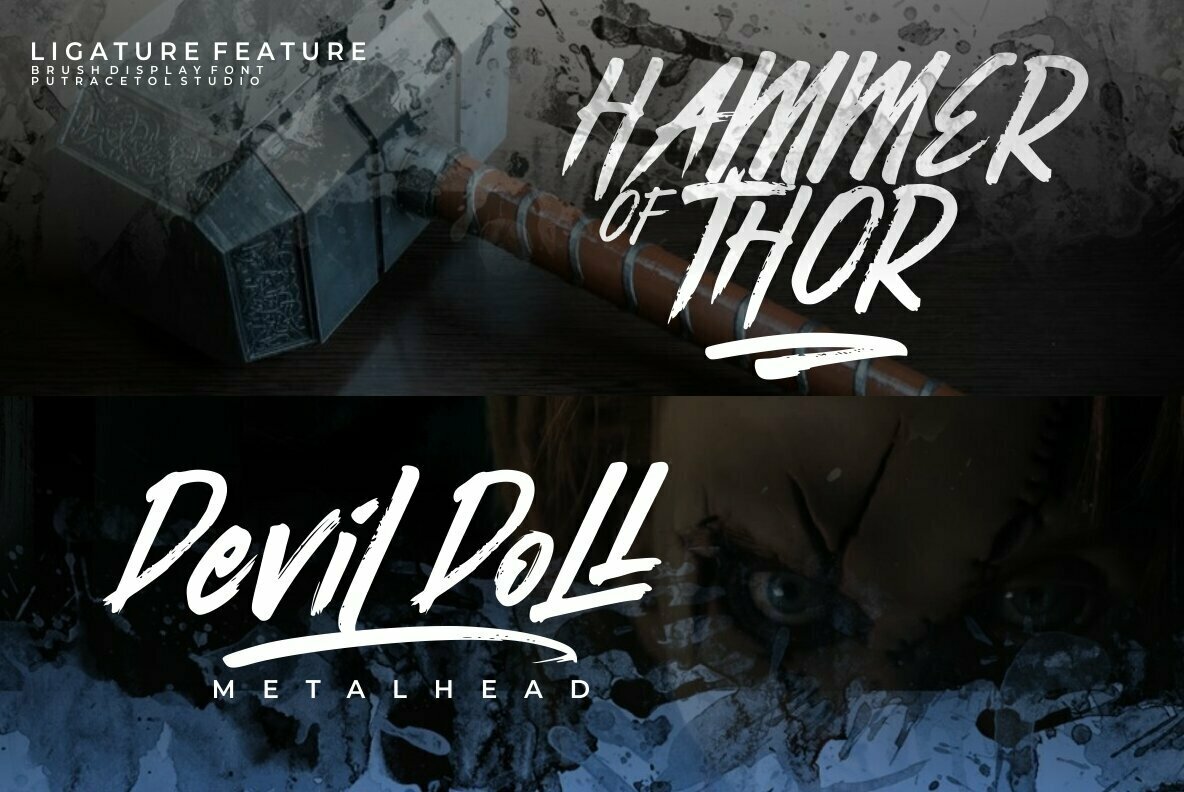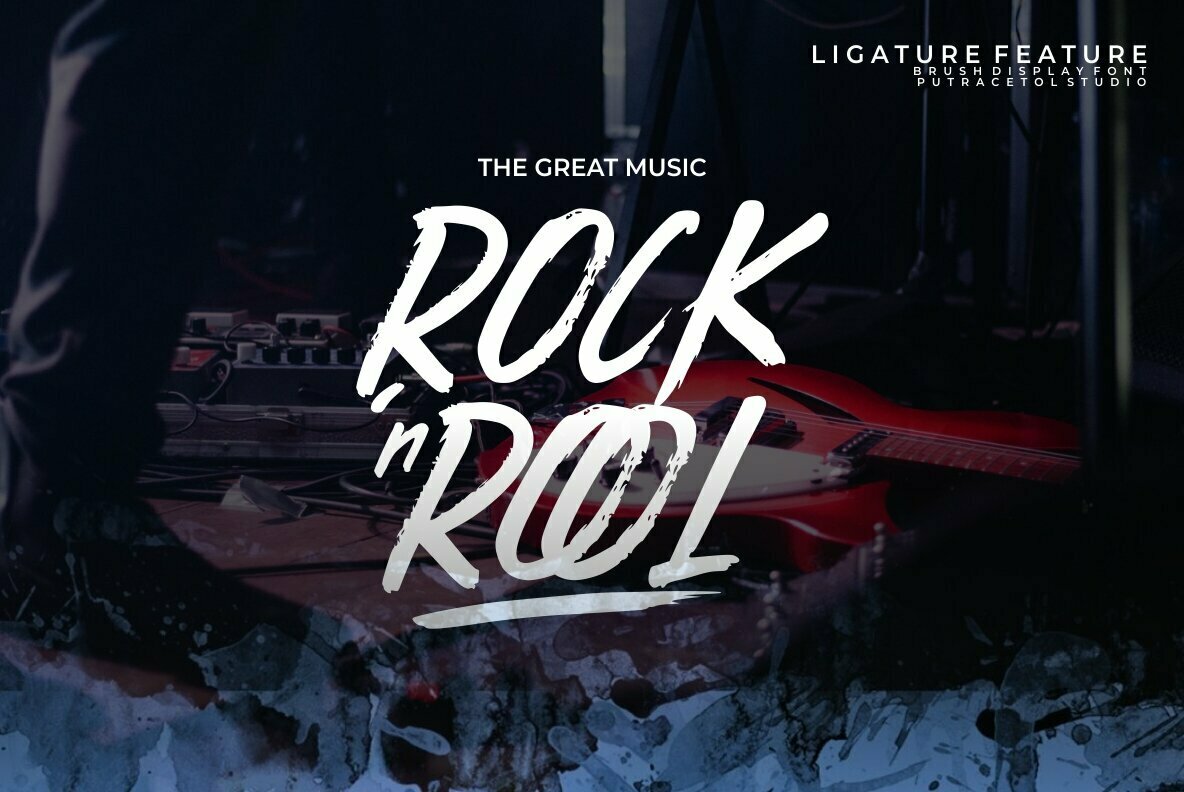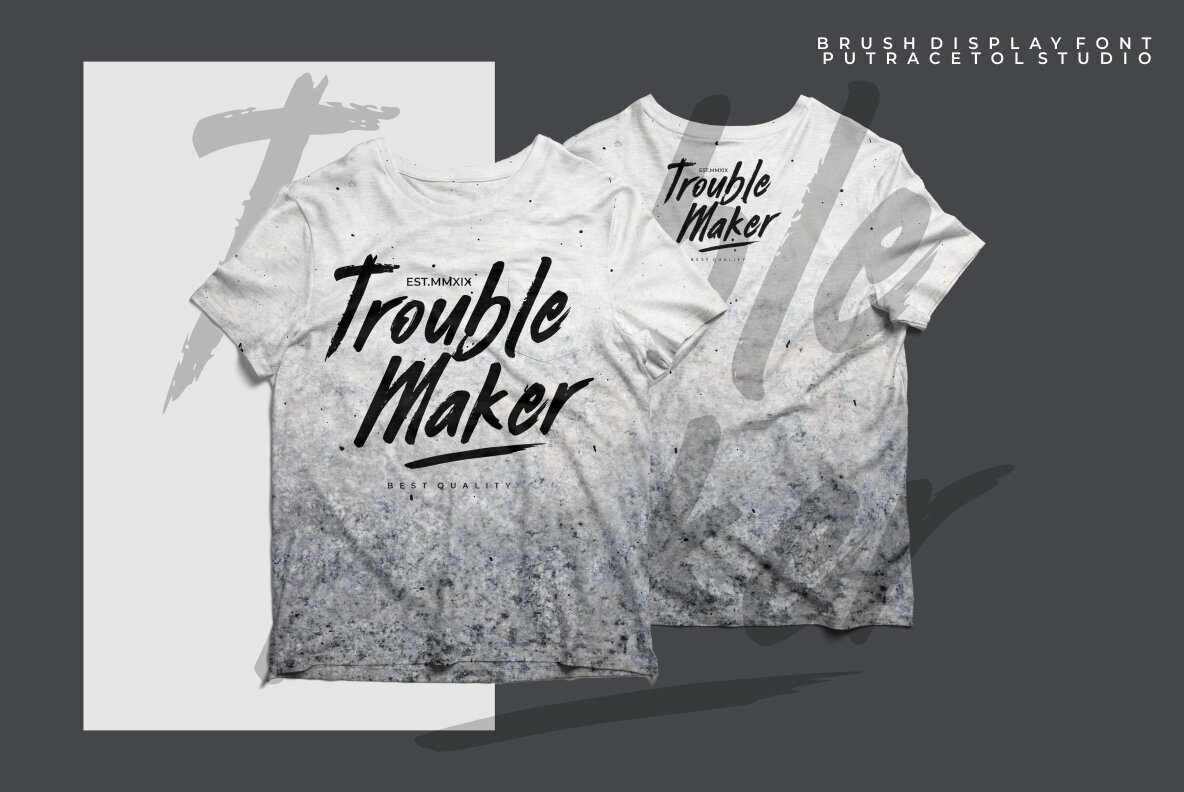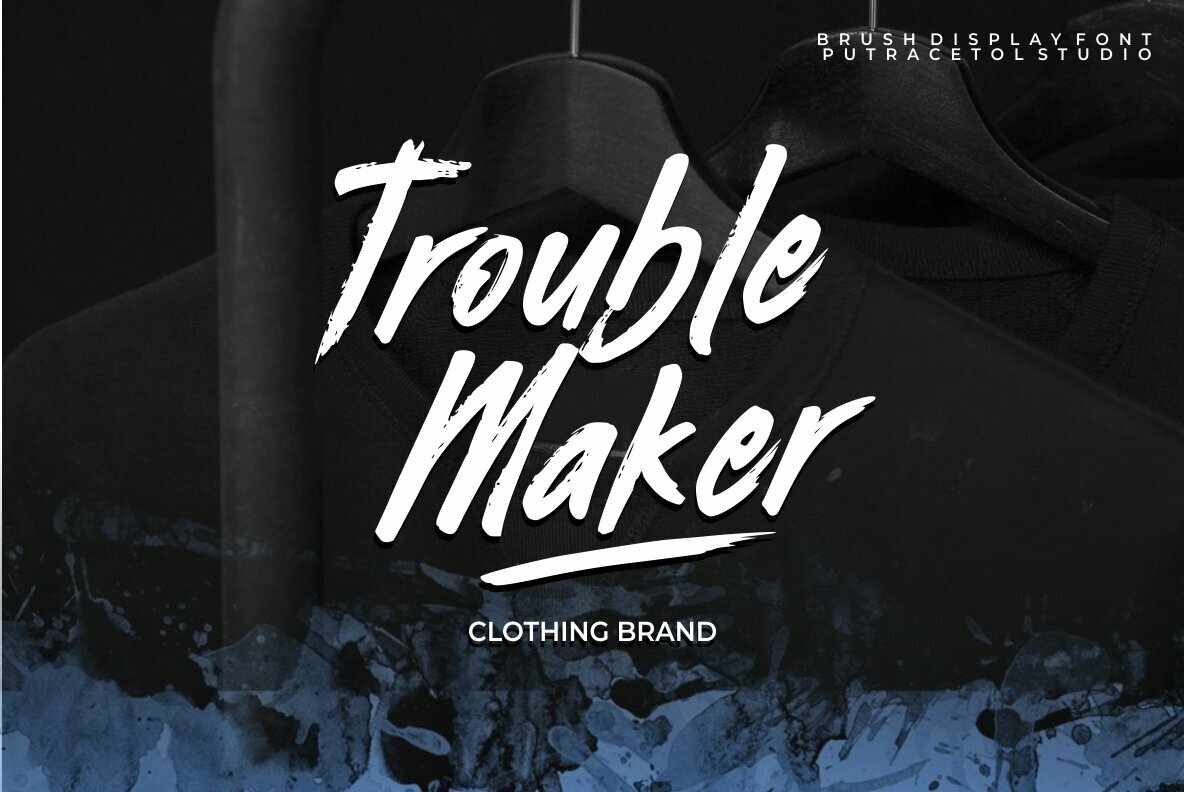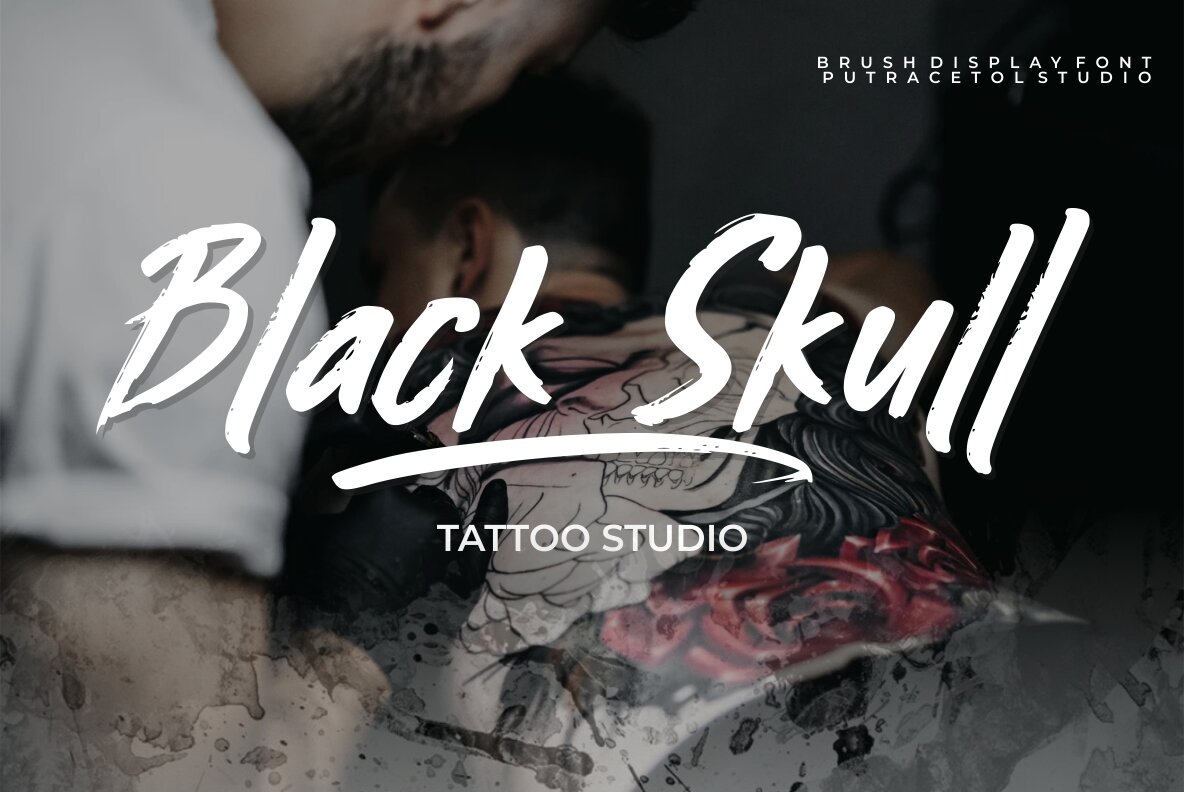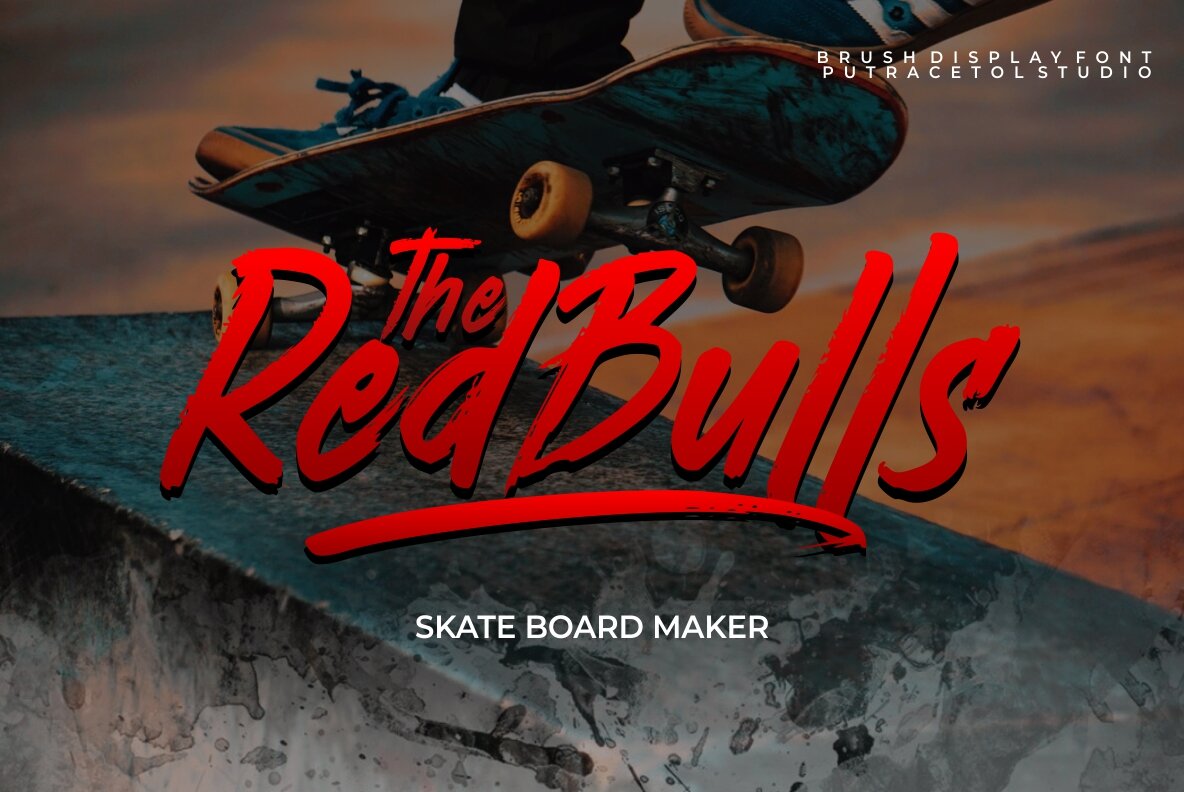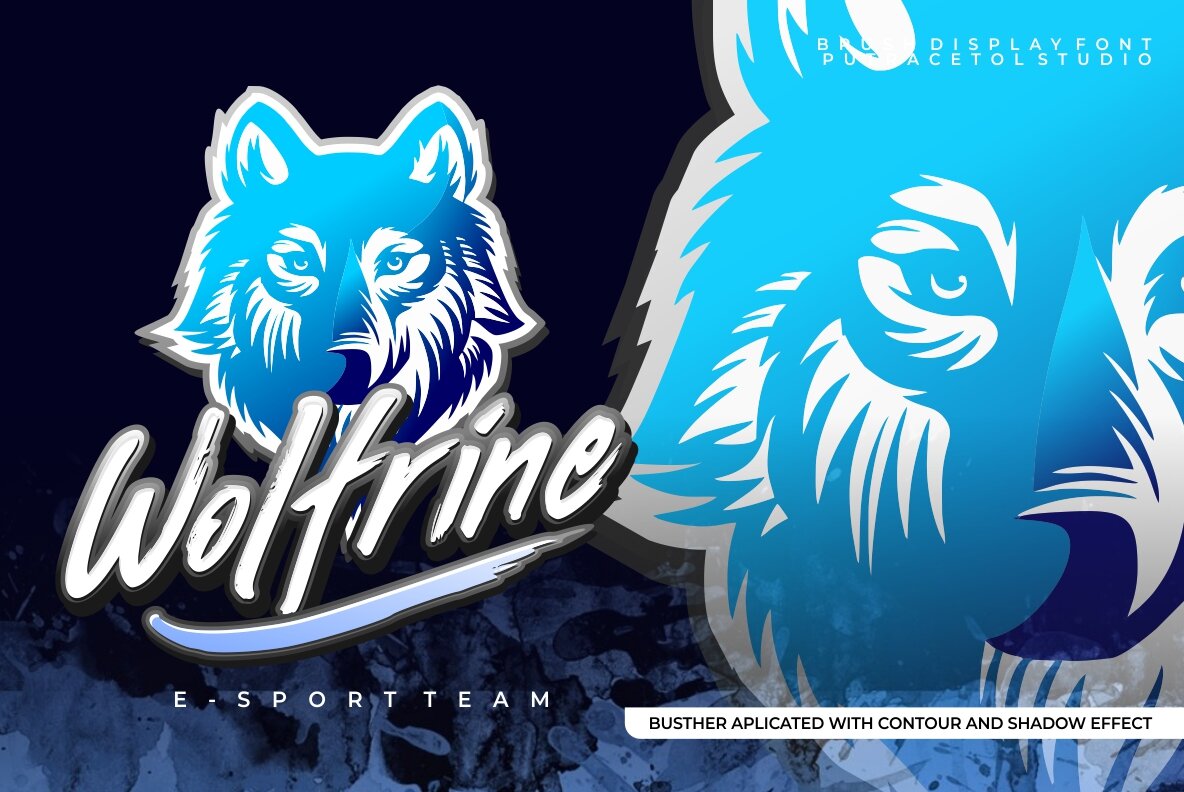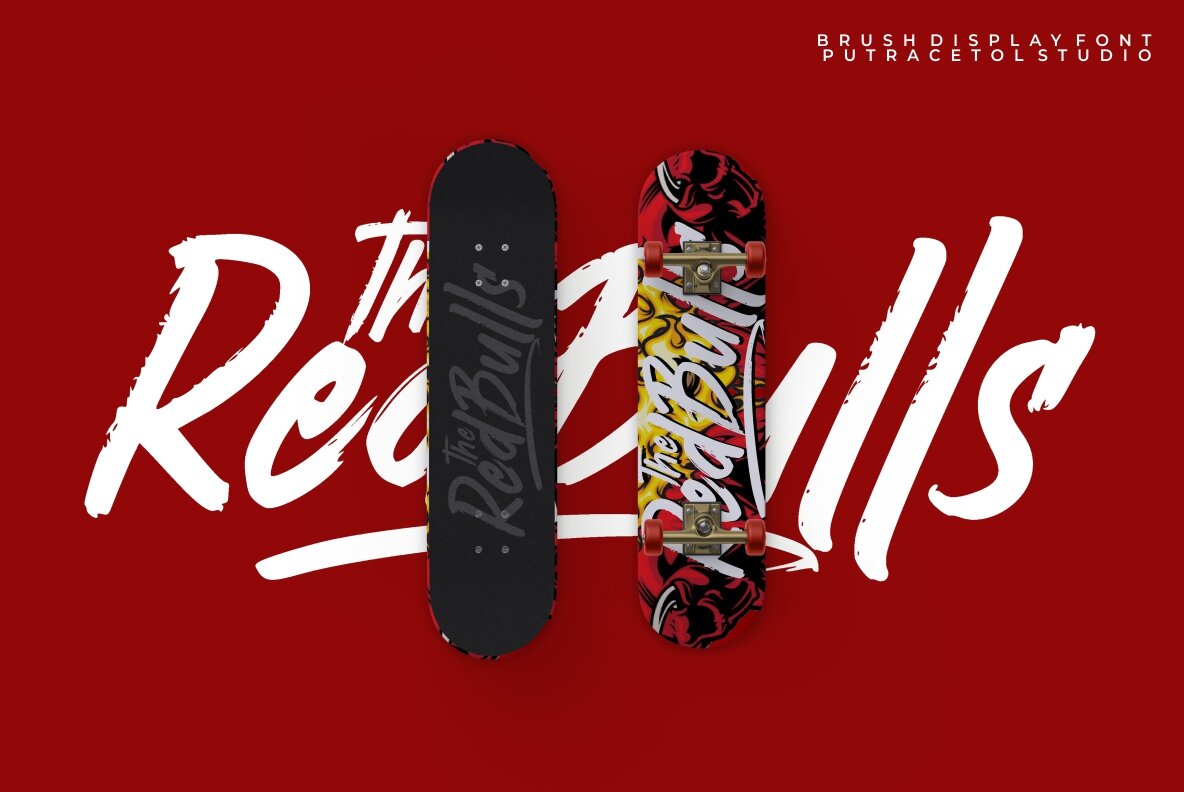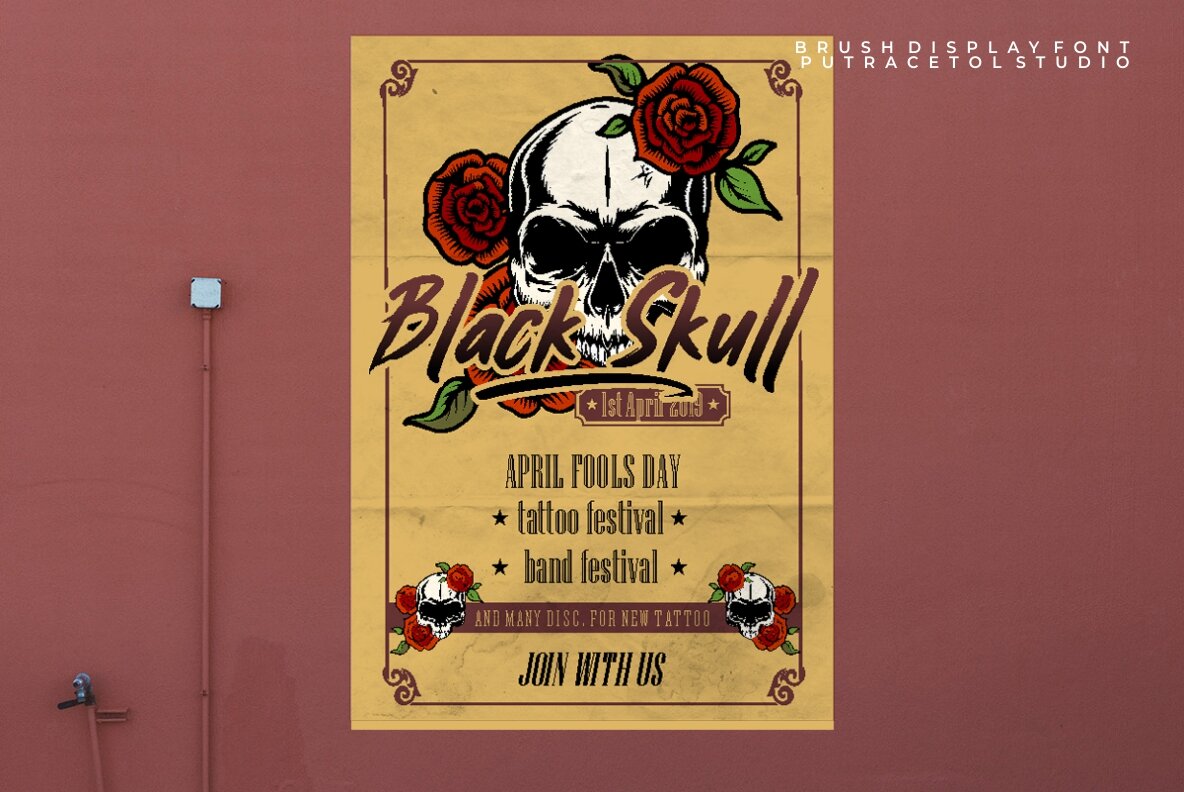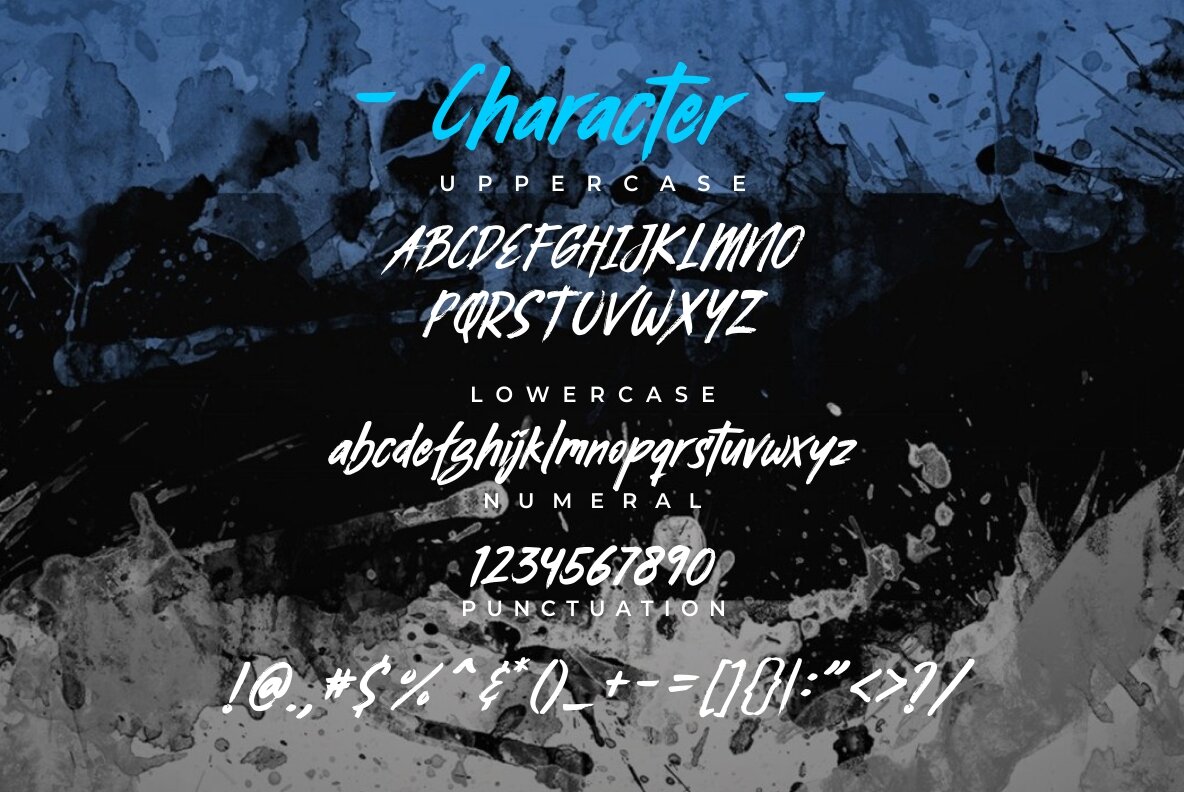
Busther Font
Busther
This font made from my original handwriting using brush pen then making it digital. So you can create a stunning and natural hand lettering quickly and easily. You can use this font for making an awesome lettering, apparel projects, signature, album cover, logo, branding, magazine, social media, & advertisements, but also works great for other projects.